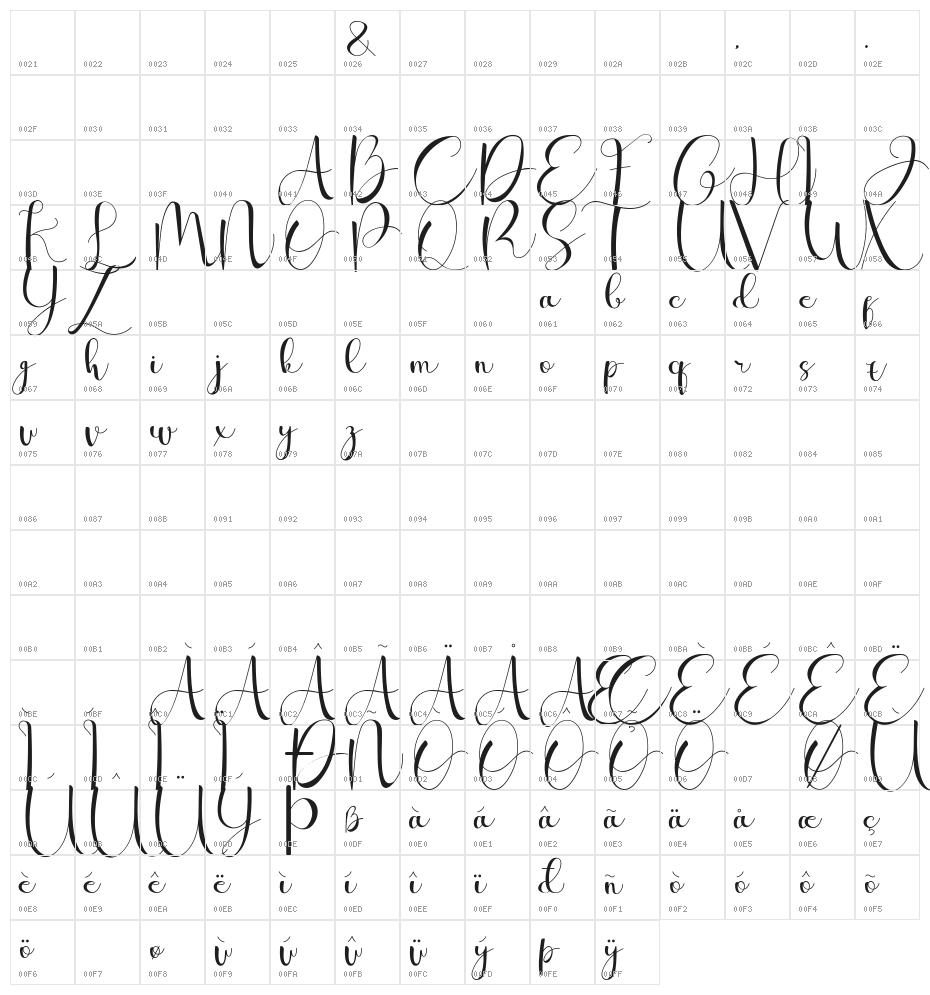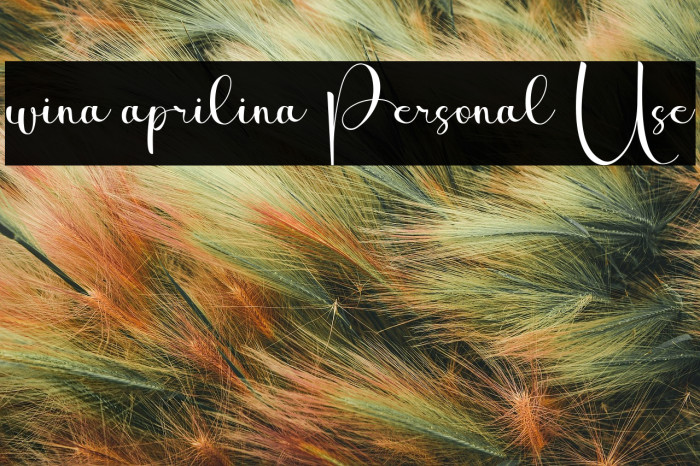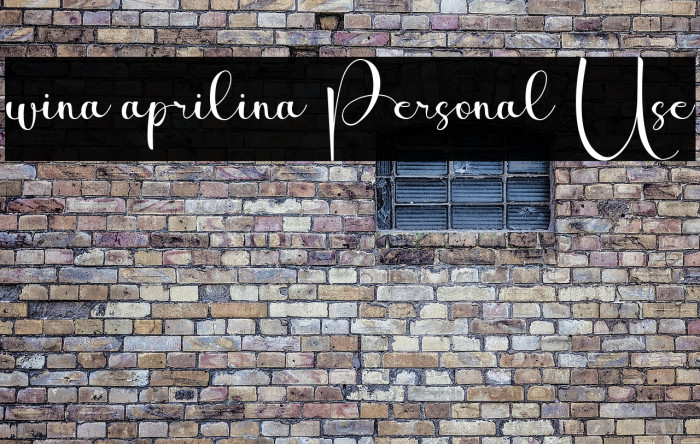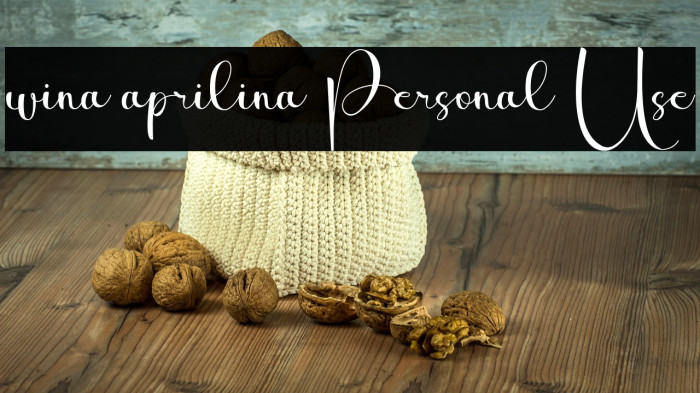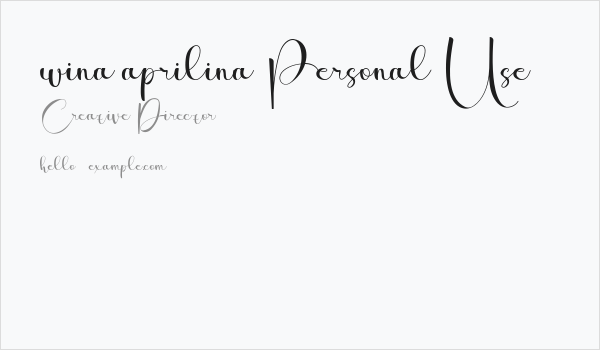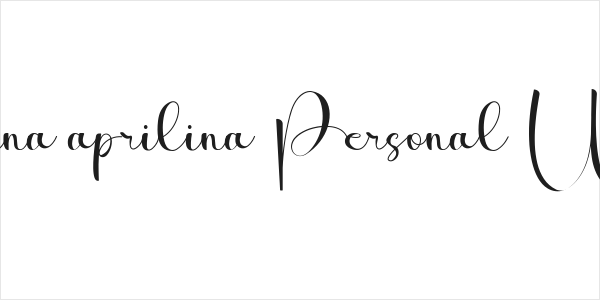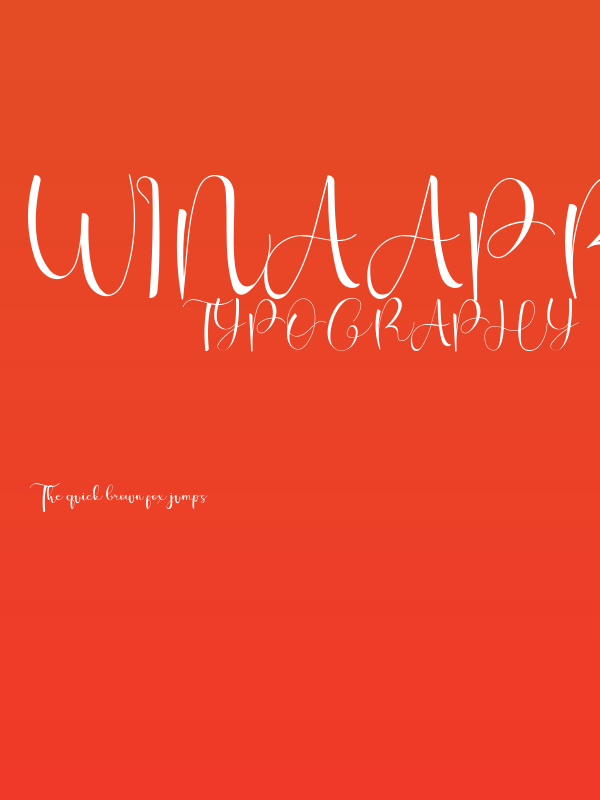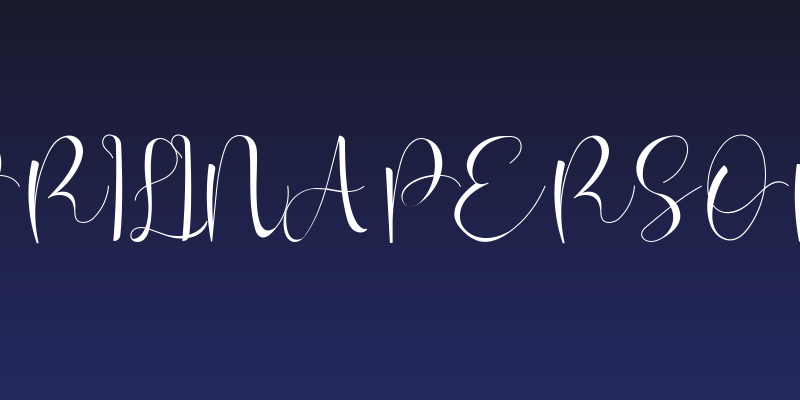
wina aprilina Personal Use Font
wina aprilina Personal Use Description
This font features an elegant and flowing script style, characterized by its graceful curves and intricate loops. The uppercase letters are tall and slender, with a sophisticated flair that adds a touch of elegance to any design. The lowercase letters maintain a consistent flow, with some characters featuring unique swashes that enhance their visual appeal. The ampersand is particularly ornate, showcasing the font's decorative nature. This font is perfect for projects that require a personal and artistic touch, such as invitations, greeting cards, and branding materials.